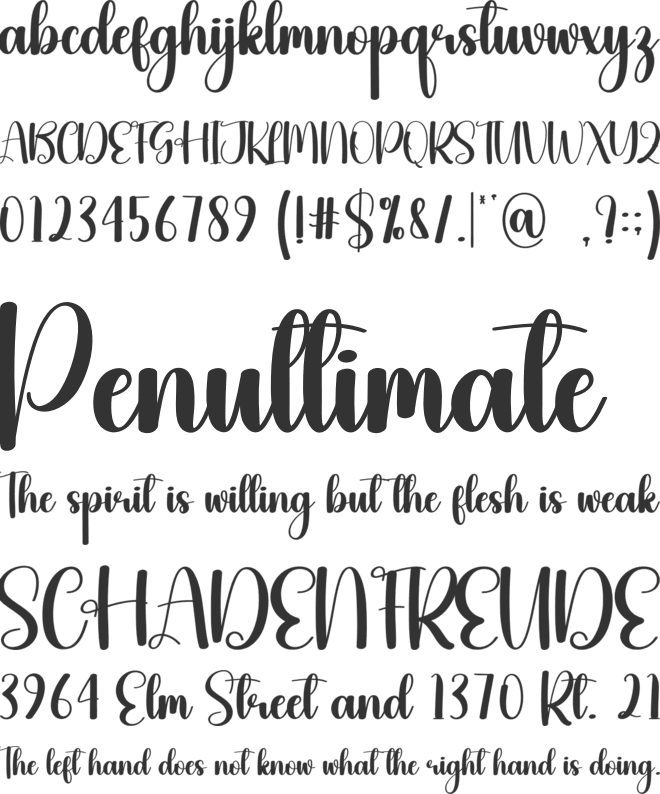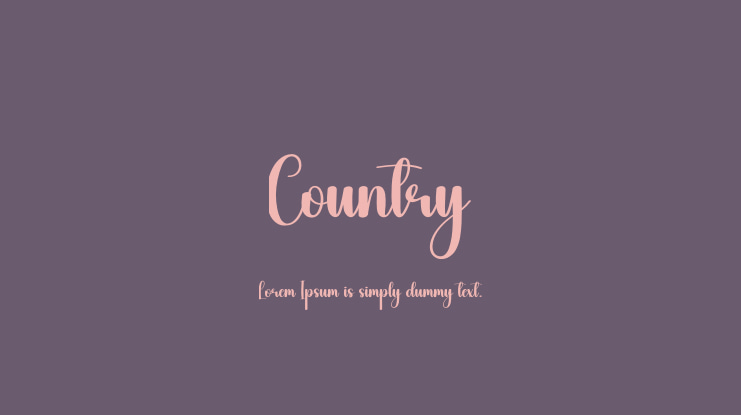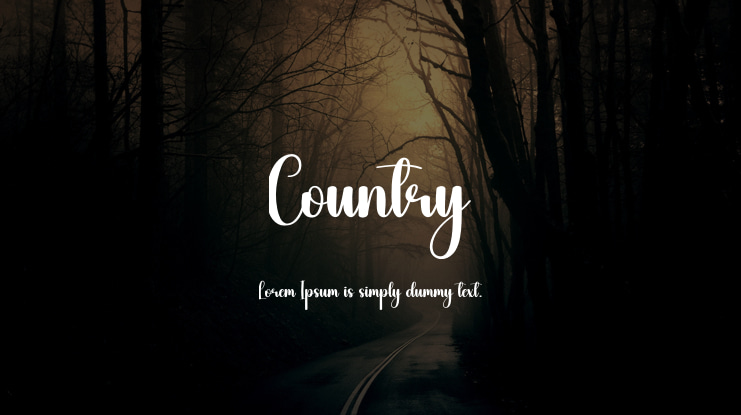
Country Font
Our latest styled letters are perfect for a variety of uses, including: - Wall displays - Wedding invitations - Social media post logos - Advertisements - Product packaging - Product designs - Labels - Photography watermarks - Invitations - Stationery - Any project requiring tasteful handwriting